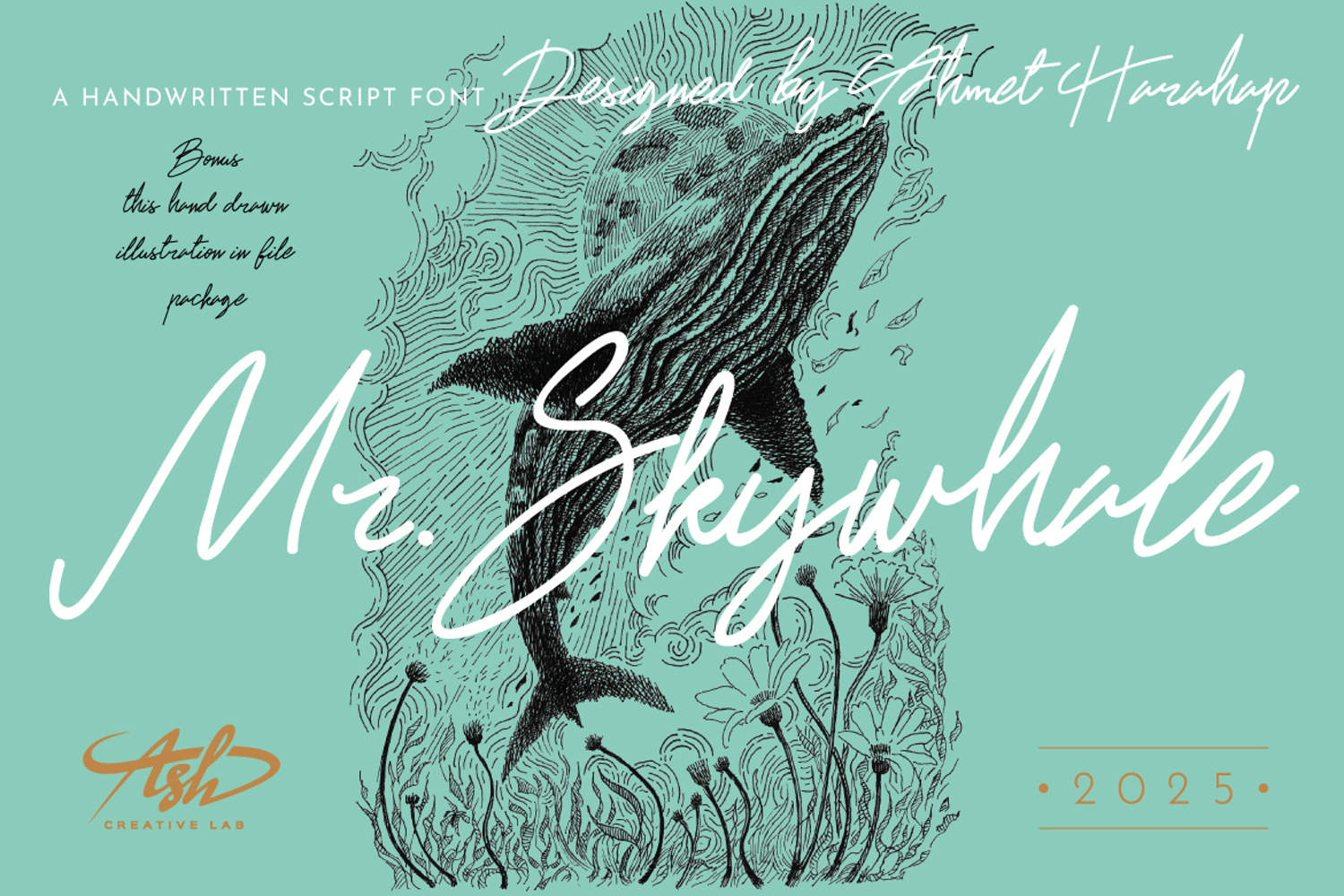
Mr. Skywhale is a typeface designed to highlight the expressive aesthetics of handwriting, reflecting the writer’s emotions with authenticity and character.
This font is well-suited for a wide range of applications, including logos (logotypes, wordmarks, lettermarks), stationery, promotional materials such as posters and other printed media, illustrated storybooks, and various design projects that require an artistic and expressive script style.